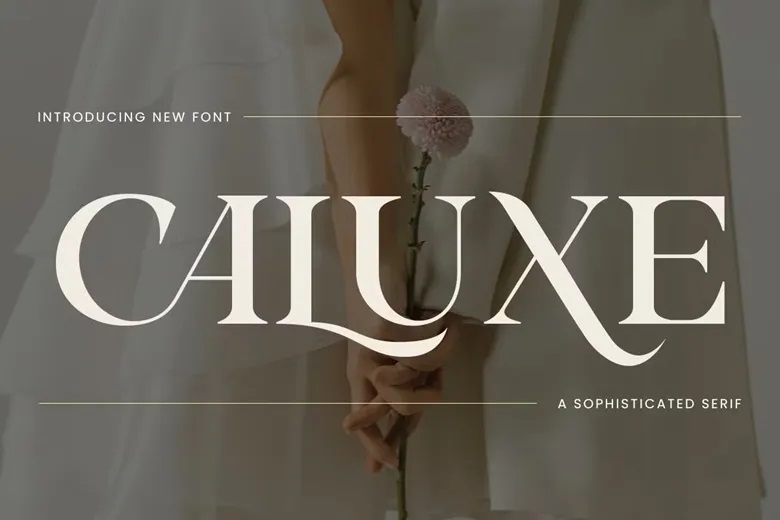
Caluxe Font
Caluxe is a contemporary luxury serif font that has been created with elegance and boldness in mind. Its refined letterforms and elegant curves make it prisoner of a sense of prestige and timeless beauty, which make it the perfect choice for designers who want to add a touch of class to their creative projects. Caluxe is not just another serif – it’s a statement of luxury and modern artistry. This font has stark contrasts, smooth kerning and bold yet elegant strokes, a balancing of strength and sophistication.
Every letter is carefully designed to ensure that visual harmony is maintained, giving flexibility for both large displays as well as fine text applications. With its versatile design, Caluxe easily meets the demands of high-end branding, editorial gathering, and digital design trends without sacrificing readability. Whether you’re working on a luxury brand logo, wedding stationery, fashion magazine, product packaging, or social media design,
Caluxe will take your work to the next level with a polished and professional appearance. Perfect for creatives who appreciate details and modern elegance, this font is ready to bring your design vision to life. Try Caluxe today, and give your projects the luxury they deserve.
Caluxe Serif Font